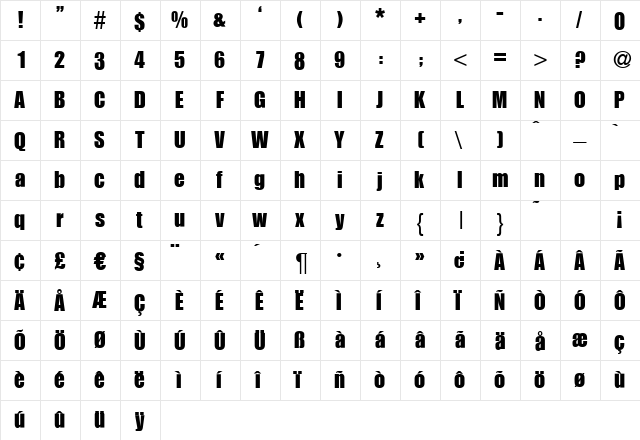
I770-Sans Regular
Design Context for I770-Sans Typeface
I770-Sans offers clean, dependable letterforms without strong stylistic allegiance, making it a practical choice for designers who need flexibility.
Pro Tip: Pair I770-Sans with a font of contrasting weight or personality to build a more expressive typographic hierarchy.